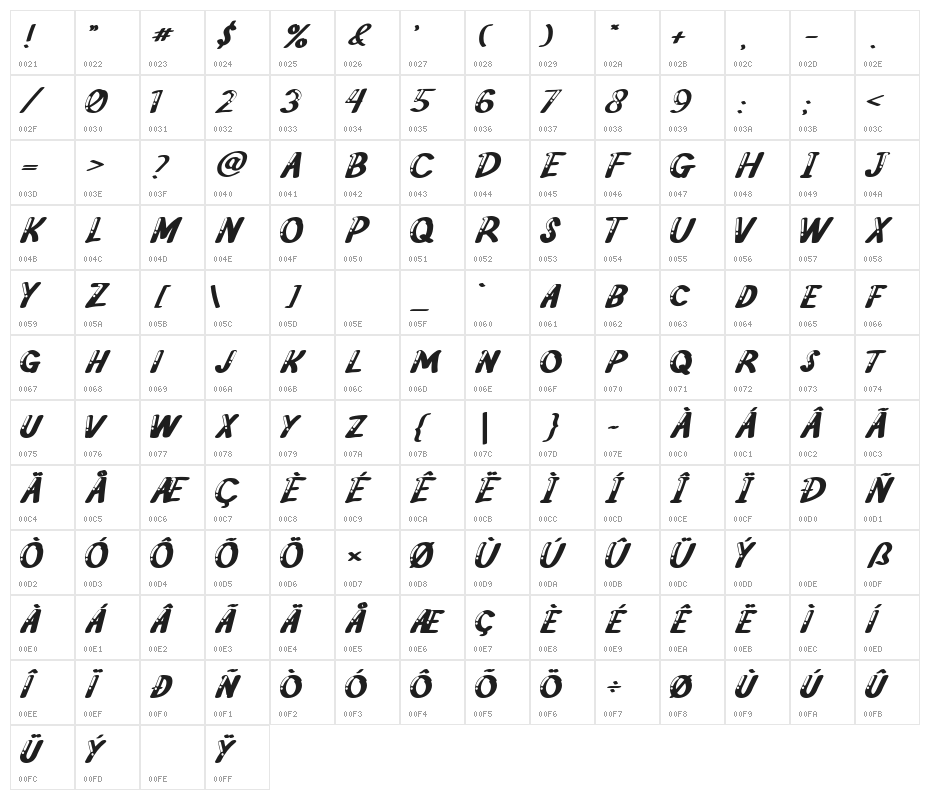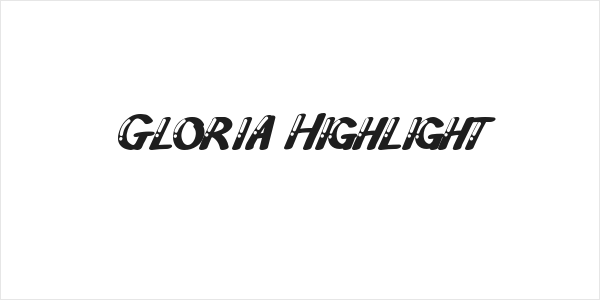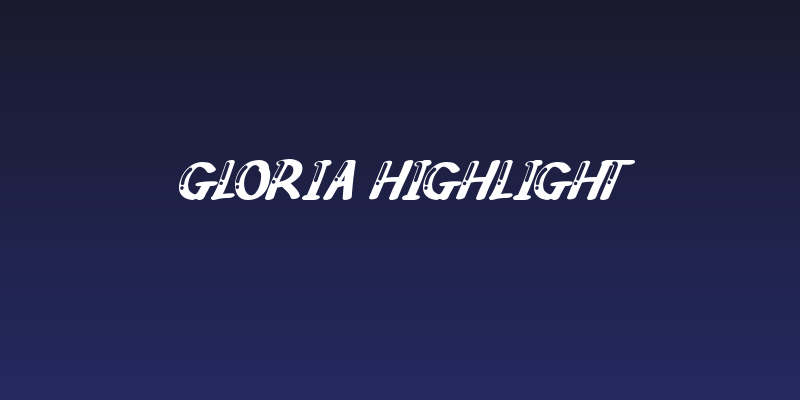
Gloria Highlight Font
Gloria Highlight Description
This font features a bold, dynamic style with a playful and decorative flair. The letters are characterized by a thick, solid structure with a unique highlight effect that adds depth and dimension. The strokes are smooth and rounded, giving the font a friendly and approachable appearance. The uppercase and lowercase letters maintain a consistent style, while the numbers and special characters integrate seamlessly with the overall design. This font's distinctive look makes it stand out, making it ideal for creative and eye-catching projects.
| Proposed Projects | Ideal for posters, branding, headlines, and creative design projects that require a bold and playful aesthetic. |